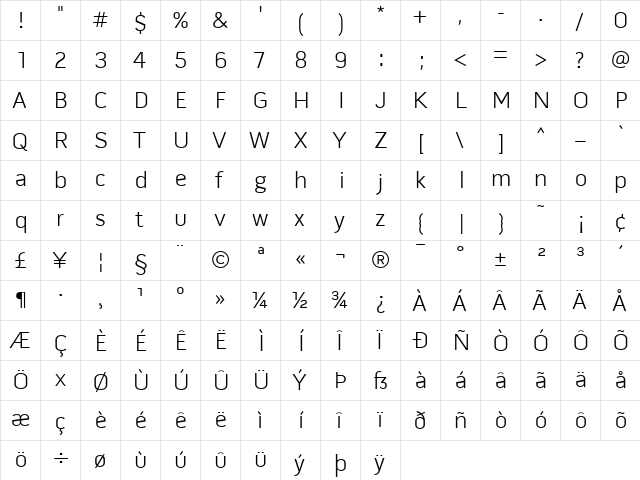
Pill Gothic 600mg Light
| Designer | Christian Robertson |
Design Context for Pill Gothic 600mg Typeface
Pill Gothic 600mg takes a clean, functional approach — its unadorned letterforms prioritise legibility and work reliably across screen and print environments. Its slender proportions lend an understated elegance to any composition.
A natural fit for high-end product packaging, luxury brand identities, and refined web typography.
Font Pairing: Pair Pill Gothic 600mg with a medium or bold serif for headlines — the weight contrast creates an elegant, high-end feel.
Pro Tip: Use Pill Gothic 600mg with generous tracking and line-height for the most luxurious effect — light sans-serifs reward spacious, considered layouts.